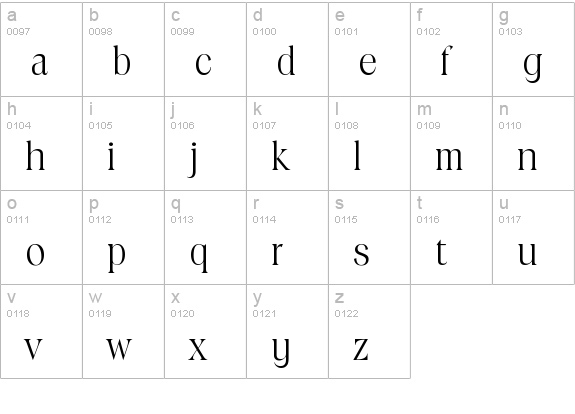
ToledoSerial-Light-Regular is a refined, elegant variant in the ToledoSerial typeface family \xE2\x80\x94 well suited to elegant body text, refined sub-headings, and luxury branding.
ToledoSerial-Light-Regular is a sophisticated and versatile font that exudes modern elegance and readability. With its clean lines and balanced proportions, this typeface is perfect for a wide range of design projects, from branding to editorial layouts. The slim, yet sturdy letterforms of ToledoSerial-Light-Regular make it ideal for both headlines and body text, adding a touch of sophistication to any design. What sets ToledoSerial-Light-Regular apart is not only its stunning design but also its accessibility. This font is available for free download at FontsMarket.com, making it a valuable resource for designers and creatives looking to enhance their projects without breaking the bank. Whether you're working on a website, marketing materials, or a print publication, ToledoSerial-Light-Regular is sure to elevate your design with its timeless appeal and effortless legibility.